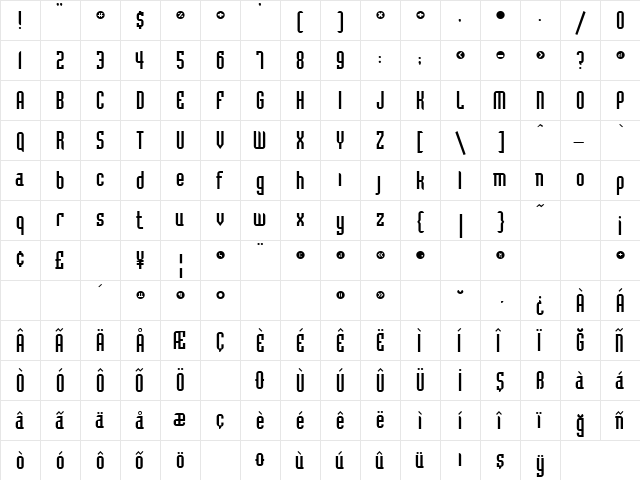
TR Bedrock Regular Font Preview
TR Bedrock Regular
Design Context for TR Bedrock Typeface
TR Bedrock offers clean, dependable letterforms without strong stylistic allegiance, making it a practical choice for designers who need flexibility.